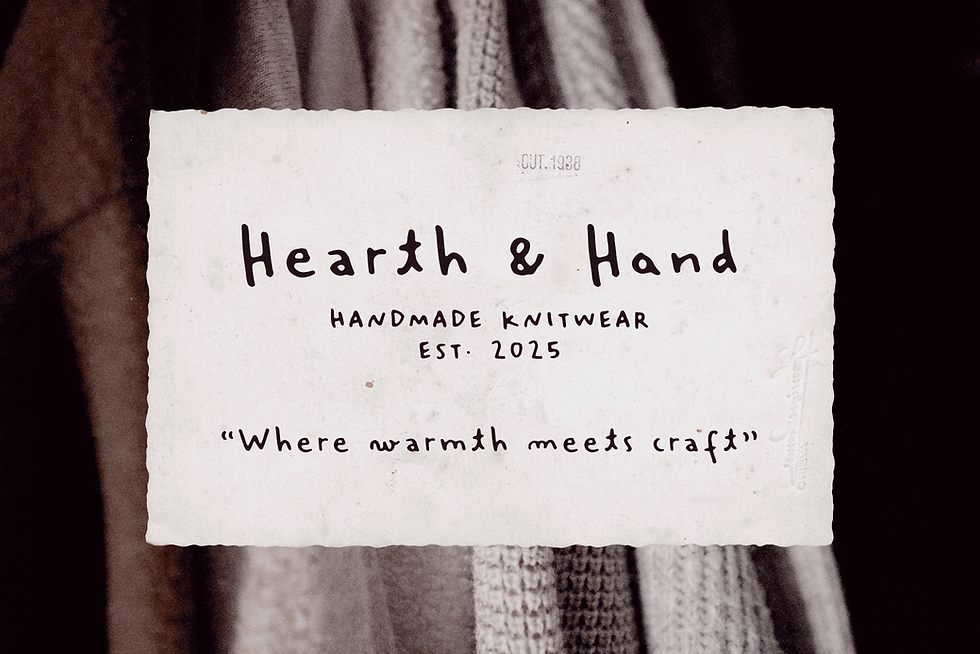
Inky Bloom: A Handwritten Marker Font with Playful Personality
If you’re searching for a cute handwritten font that feels both artistic and polished, meet Inky Bloom — a handcrafted marker-style typeface designed for creatives who love character and versatility.
Inspired by the smooth, expressive strokes of a Pentel Sign Pen, Inky Bloom brings warmth and personality to any project — from cozy recipe cards and charming coffee menus to modern branding and editorial layouts.
Four Unique Styles for Endless Creativity
Inky Bloom isn’t just one font — it’s a flexible set of four handcrafted uppercase styles:
Regular Caps – the clean, balanced base for everyday design
Small Caps – petite and sweet, matching lowercase height
Tall Caps – perfect for playful contrast or headlines
Display Caps – a bold, hand-drawn style for logos, posters, and attention-grabbing titles
Perfect for Designs That Need a Handmade Look
Inky Bloom was made with designers, illustrators, and small business owners in mind. Its natural marker texture and stylistic alternates give you that perfectly imperfect handmade feel — no extra work required.
Use it in:
Recipe layouts for a cozy, personal touch
Coffee shop menus to add warmth and approachability
Logo designs that need personality and charm
Articles and magazines for standout headlines with heart
Wherever you need a little creativity and friendliness, Inky Bloom delivers.